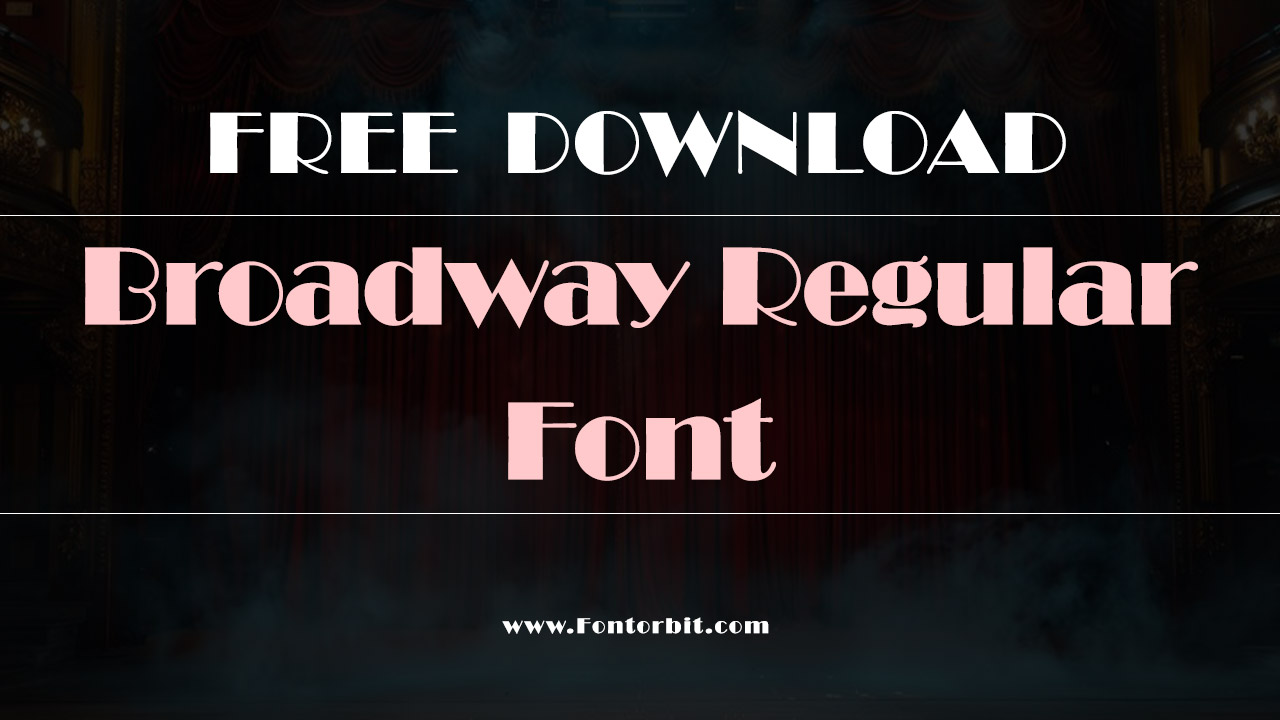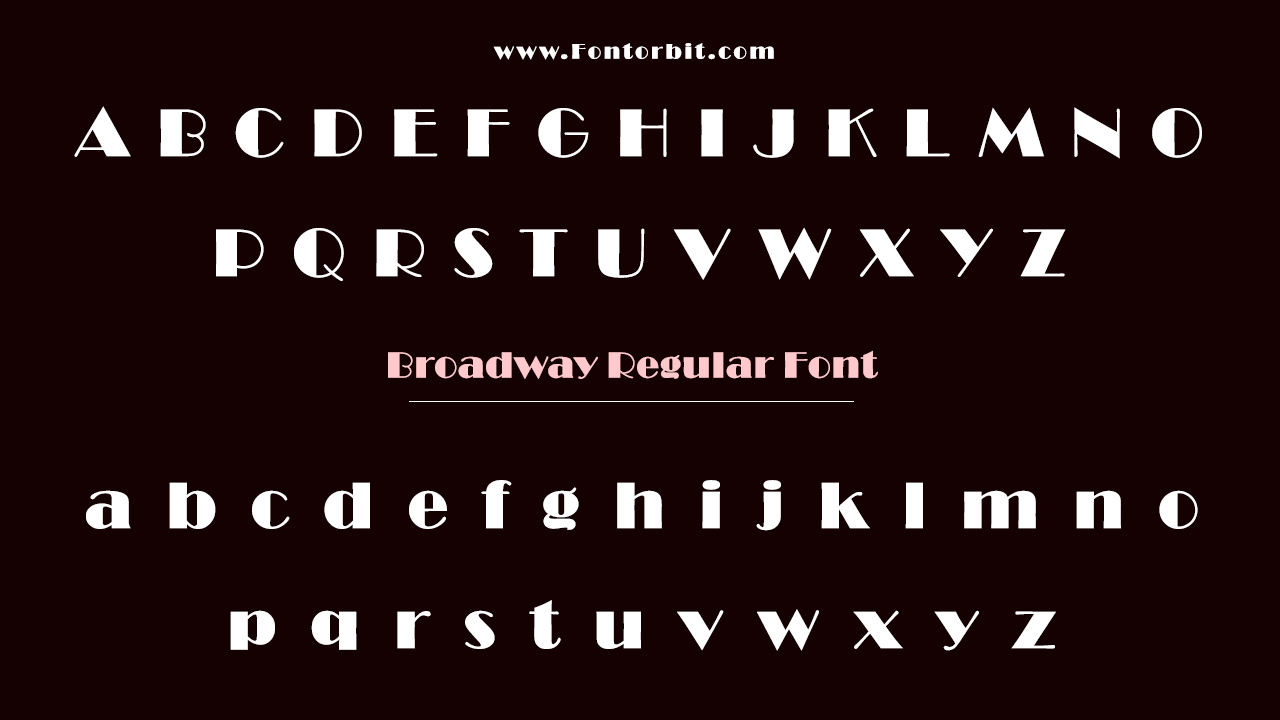
Broadway is a decorative display typeface originally designed by Morris Fuller Benton and released in 1927 through American Type Founders (ATF).
Known for its Art Deco style, Broadway is characterized by its bold, geometric shapes and high-contrast strokes. People widely used it during the 1920s and 1930s, reflecting the glamorous and lavish feel of that era. The typeface family includes different weights and styles, adding versatility to its classic yet luxurious design.
Designers expanded the Broadway typeface into a family that includes multiple styles to enhance its functionality across different applications. This font family maintains its distinct Art Deco characteristics while offering various weights for different uses.
Broadway Regular
Notable Uses Of Broadway
Broadway is commonly used in designs that need to evoke a sense of luxury, glamour, or nostalgia for the Art Deco period. It has been used in:
- Advertising
- Theater posters
- Movie titles
- High-end restaurant
- Nightclub branding
- Album covers (Jazz and swing music)
Broadway’s unique, ornamental style makes it suitable for a wide variety of creative and decorative projects. It’s best suited for:
- GIFs
- Newspapers
- Annual reports
- Museum exhibitions
- PowerPoint presentations
- Email marketing templates
- Promotional videos
- Brochures (print and digital)
- Signage and trade show displays
Broadway is a font that stands out with its elegant and bold Art Deco design. Although it might not be ideal for body text, its strong personality makes it perfect for branding, display type, and artistic projects. It continues to be a popular choice for designers looking to incorporate vintage glamour into their work.
1.What Style Of Font Is Broadway?
Broadway is a decorative display font in the Art Deco style.
4.What Are The Distinguishing Features Of Broadway?
Its geometric shapes, high contrast, and thick strokes give Broadway its distinct Art Deco flair.
5.Is There A Condensed Version Of Broadway Font?
Yes, Broadway has a condensed variant available for more compact design needs.